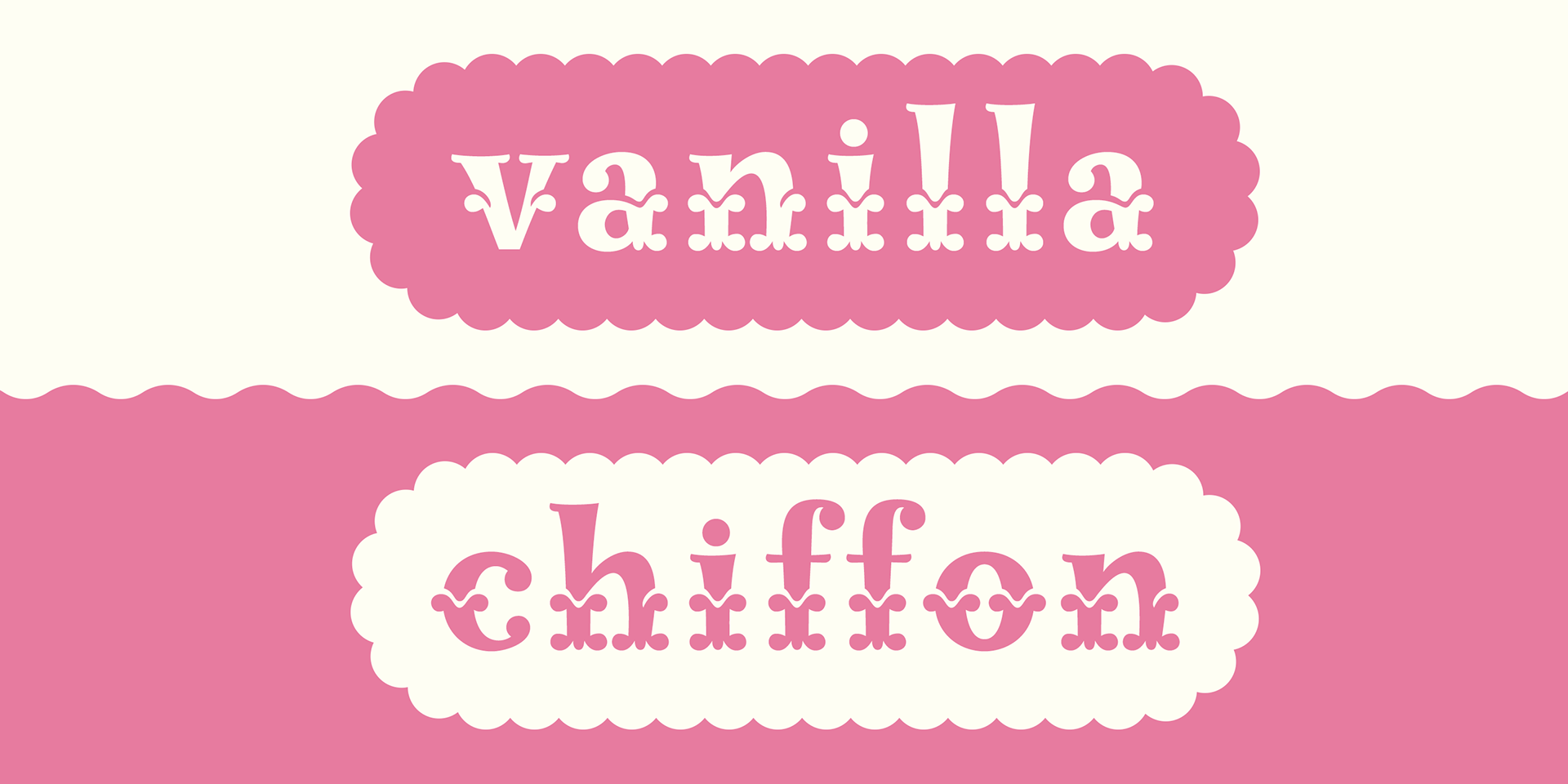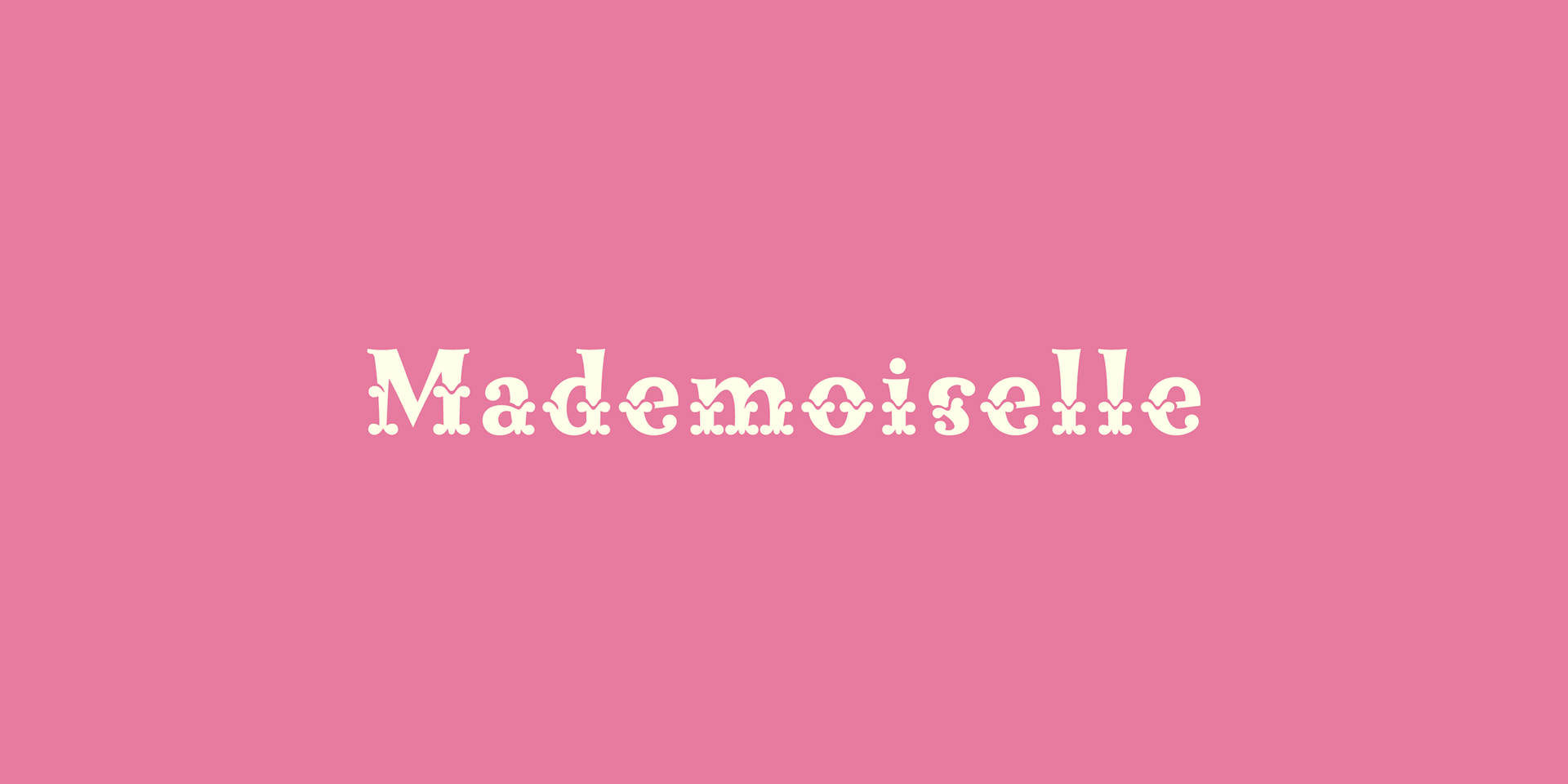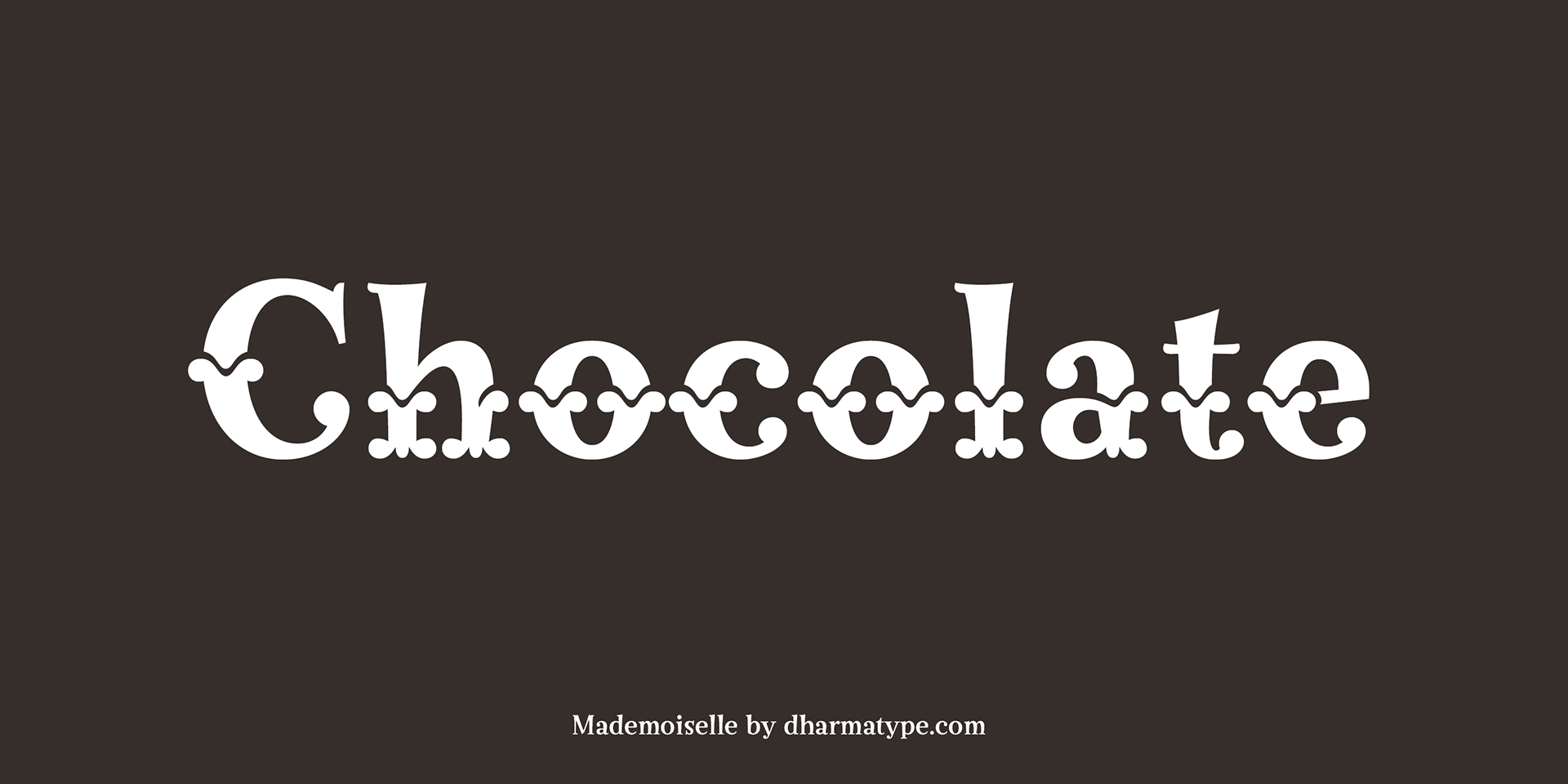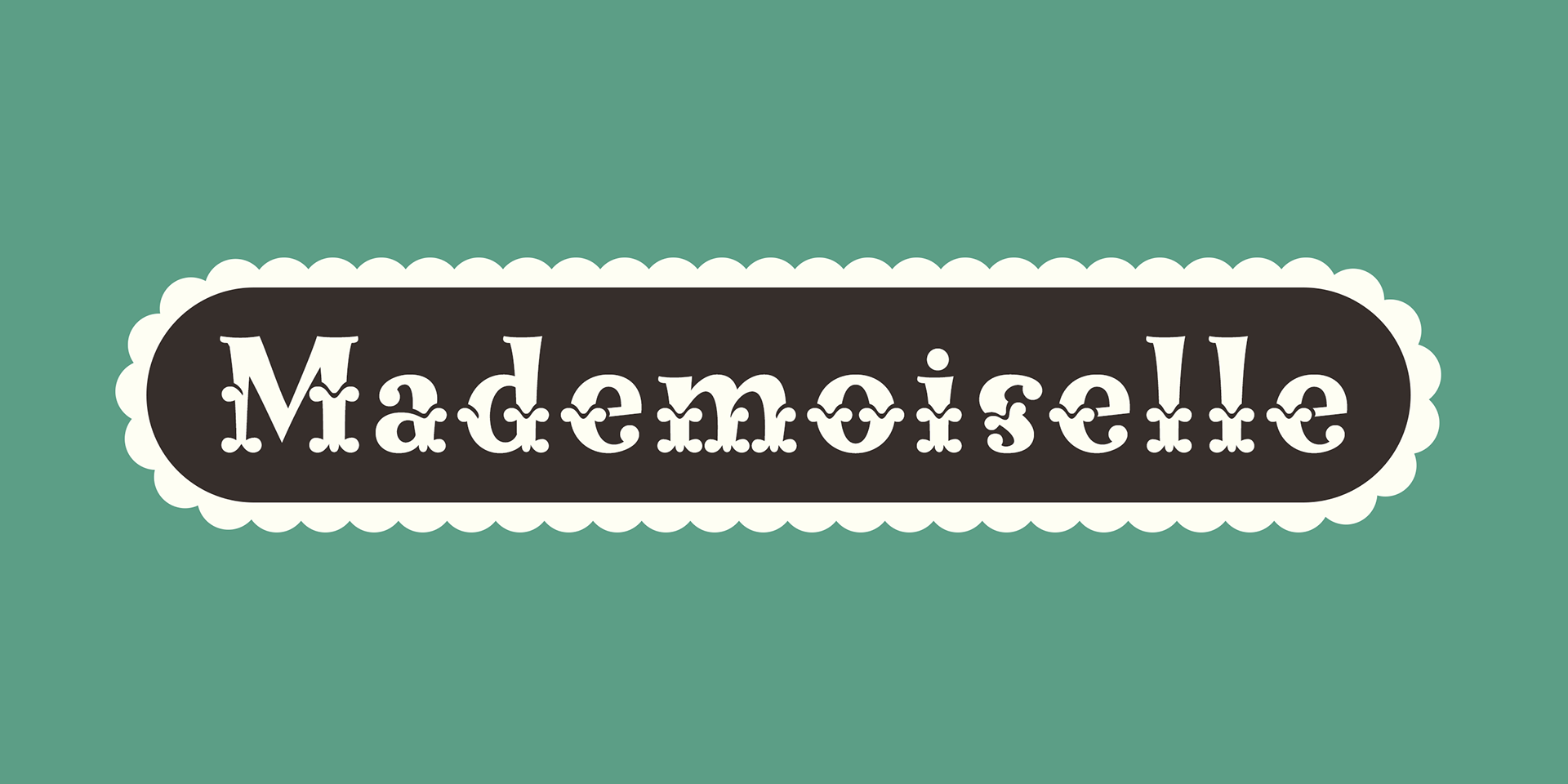
Mademoiselle
This wood type is one of the most unique Wild West–inspired Tuscan fonts you'll find.
No other decorative wood type or Tuscan style offers the same level of cuteness and charm as this delightful font family.